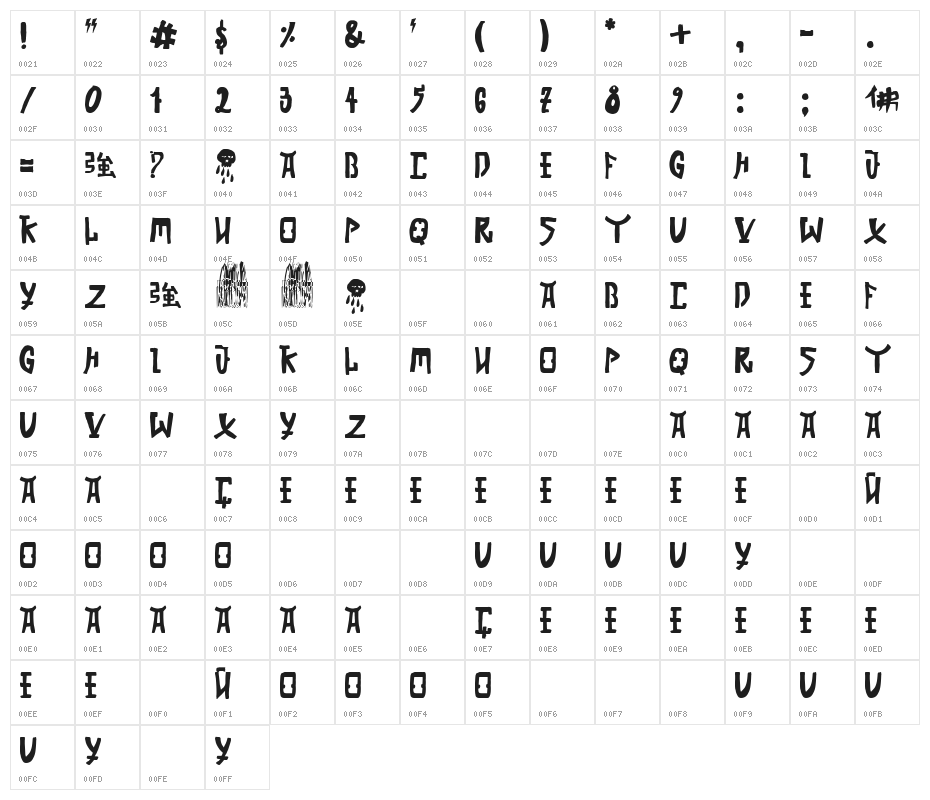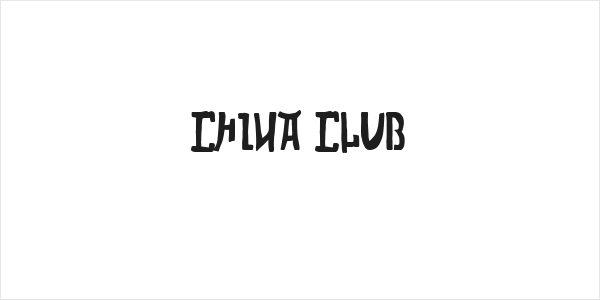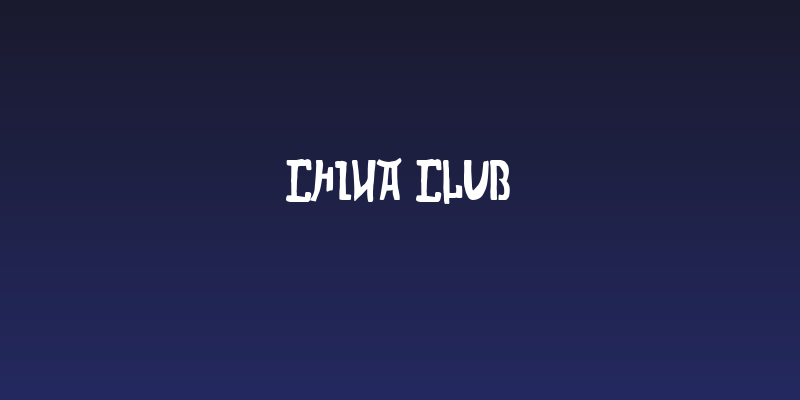
China Club Font
China Club Description
A bold, decorative display font with brush-like strokes and irregular, hand-drawn letterforms. The characters have a playful, energetic feel with uneven widths and quirky angles, evoking an East Asian calligraphic influence.
Overall StyleDecorative, Playful, Calligraphic
Use CaseHeadlines, Logos, Posters, Signage
Proposed ProjectsRestaurant branding, posters, event flyers, themed packaging, signage, childrenÒ€ℒs books.